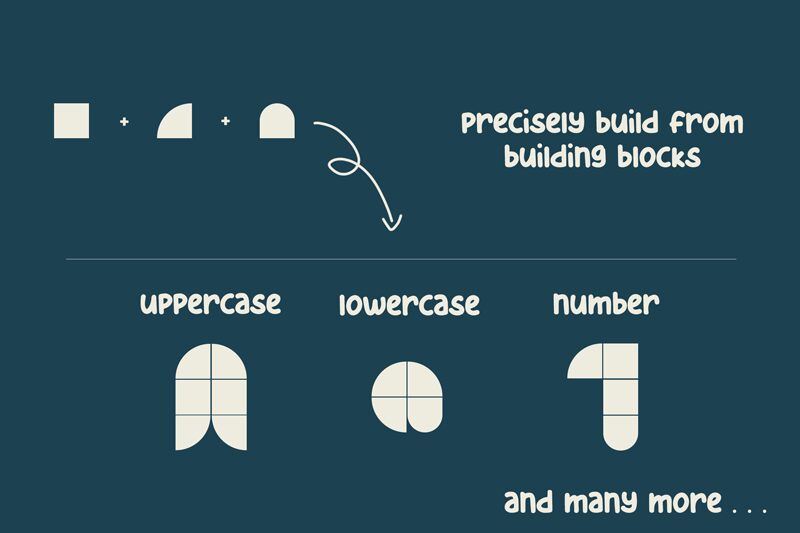
The Sun & Flower, a groovy display font designed by Tigadestd, exudes vibrant energy and retro charm. With its extra-bold weight, this font adds a bold and expressive touch to any project. Its playful curves and funky vibes make it perfect for designing eye-catching logos, posters, album covers, and party invitations. Whether you're working on a 70s-inspired branding campaign or an upbeat music festival flyer, The Sun & Flower will inject your designs with a burst of personality that is sure to captivate your audience. Let creativity bloom with this groovy typeface!
The Sun & Flower